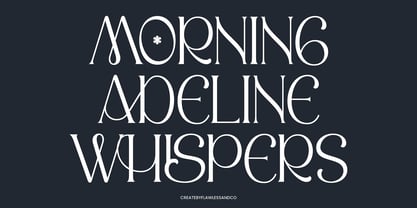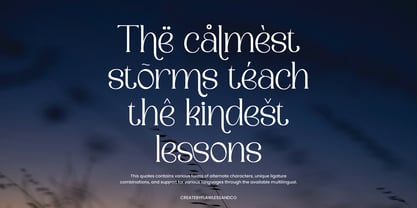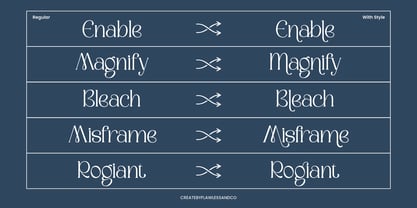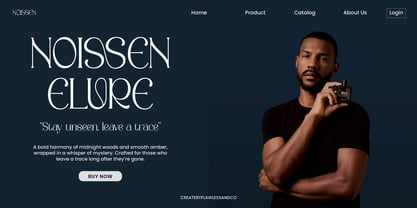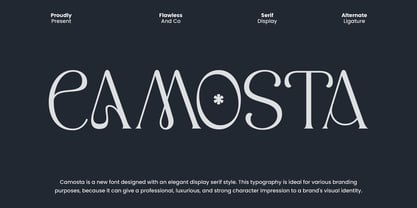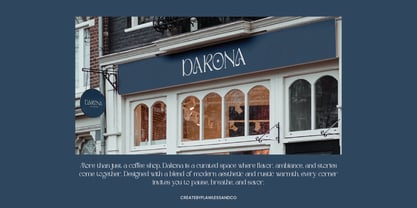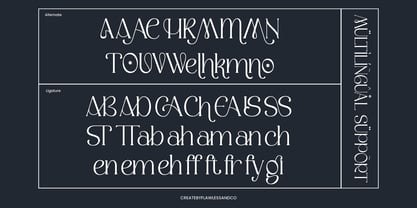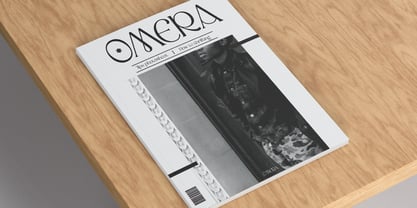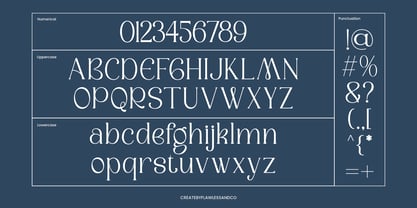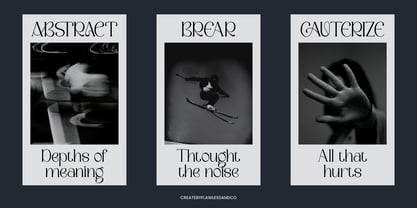
Camosta
by Flawlessandco
The Camosta Font Family was designed by Achmad Yani and published by Flawlessandco. Camosta contains 1 styles. More about this family
Camosta is a sophisticated serif font with a touch of artistic elegance. Designed to make a char,ing yet refined impression, it blends stylish curves with striking alternates to elevate any design. Ideal for branding, editorial, or high-end packaging, Camosta brings a luxurious, professional look while maintaining a unique and memorable character.
Features :
Multilingual, Uppercase alphabet A-Z, Lowercase alphabet a-z, Numbers 0-9, Some punctuation, Alternates & Ligatures
Designers: Achmad Yani
Foundry: Flawlessandco